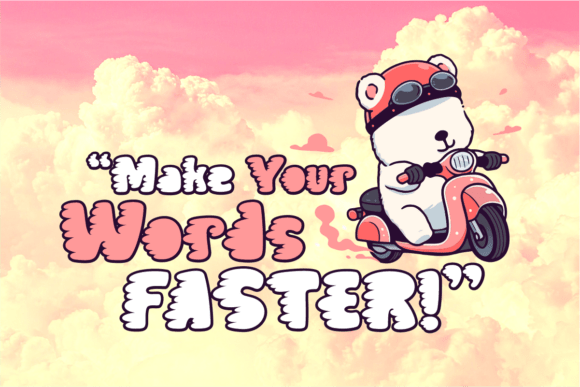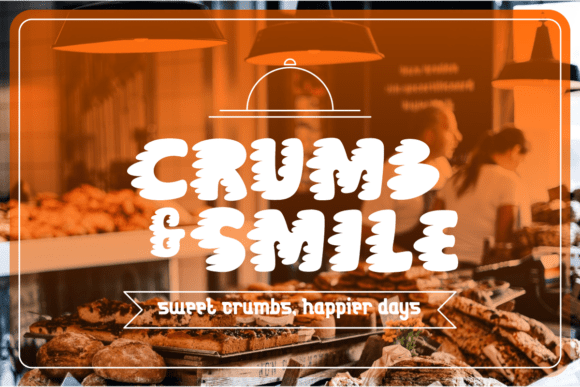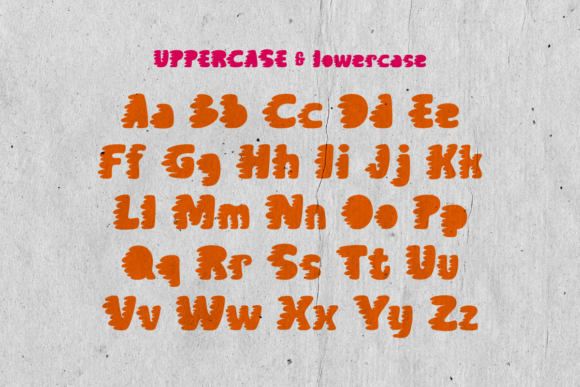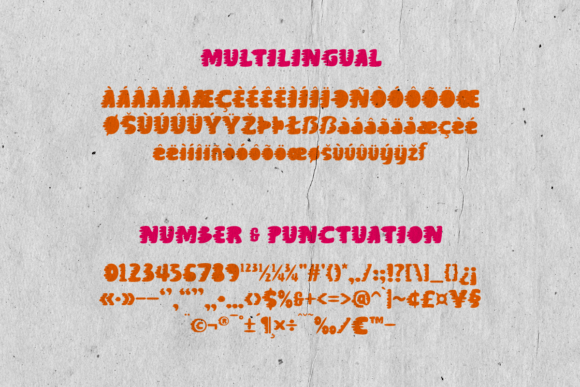
The Perfect Blend of Strength and Playfulness: Introducing the Breezy Chunk Font
Have you ever been brainstorming a new design project, and suddenly, the perfect font pops into your head, instantly elevating your concept from good to great? That’s exactly what happened when designers first laid eyes on the Breezy Chunk Font. This bold and confident display font is specifically designed to bring instant impact to any design, making it the perfect addition to your creative toolkit.
With its chunky, solid letterforms and smooth curves, the Breezy Chunk Font captures a perfect balance between strength and playfulness, making it a valuable asset for graphic designers, brand creators, and anyone who wants to add a bold statement to their work. Whether you’re designing retro posters, bold packaging, or eye-catching logos, the Breezy Chunk Font delivers that strong visual punch you’ve been looking for.
Breezy Chunk Font Key Features
- Unique Characteristics: Features a playful, chunky design with rounded edges and a friendly feel, making it perfect for creating eye-catching headlines and titles.
- Font Weight: Available in Regular and Bold weights, allowing designers to create a range of visual effects and emphasize important text.
Breezy Chunk Font Review
Overall, I think the Breezy Chunk font is a unique and refreshing addition to any design project. Here’s what I like about it:
- ✨ Its playful, hand-drawn feel is perfect for adding a touch of whimsy to children’s books, magazines, or social media posts.
- ✨ The font’s chunky texture gives it a fun, laid-back vibe that’s perfect for casual designs.
- ✨ Breezy Chunk is highly legible, even at smaller font sizes, making it a great choice for body text.
However, I do have a few reservations:
- ⚠️ The font can feel a bit too chunky at larger font sizes, which can make it difficult to read.
- ⚠️ Some of the letterforms can feel a bit inconsistent, which may detract from the overall design.
Overall, I think the Breezy Chunk font is a great choice for designers looking to add some personality to their work. While it may have some limitations, its unique feel and high legibility make it a solid addition to any font collection.
Tips for Getting the Most Out of Breezy Chunk Font
For the best results, use Breezy Chunk Font in bold or italic to add emphasis to your text.
Breezy Chunk Font is perfect for:
- Creating eye-catching headings and titles.
- Designing social media graphics and posters.
- Adding a playful touch to your branding and marketing materials.